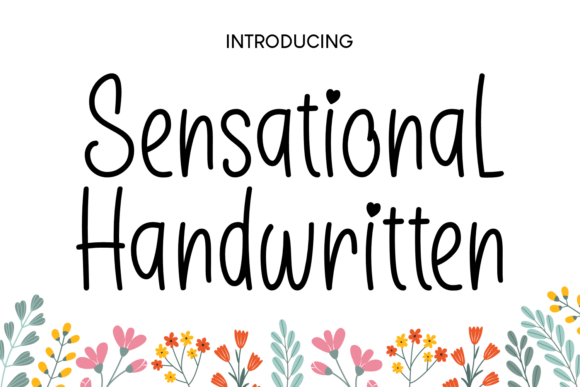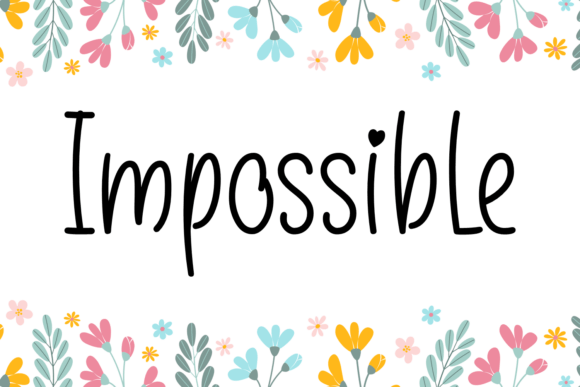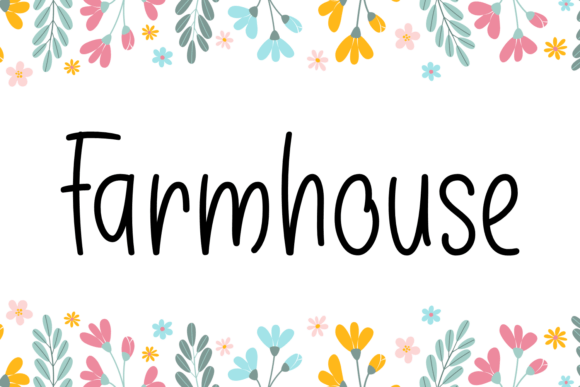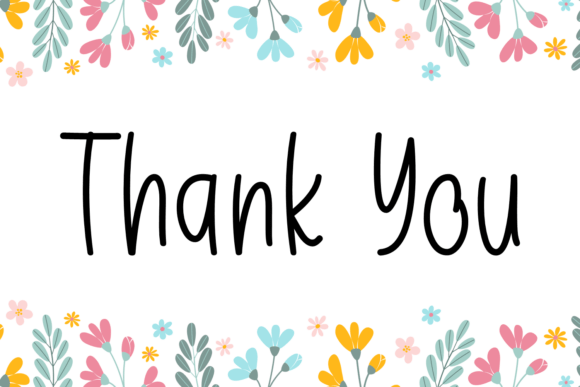
Sensational Handwritten Font
About the Sensational Handwritten Font
Make a bold statement with Sensational Handwritten Font, a powerful and memorable font. Sensational Handwritten is a charming and whimsical font with a casual, friendly feel. Featuring adorable heart details and smooth, rounded strokes, this font is perfect for greeting cards, kids’ projects, branding, social media, and DIY crafts. Its playful and cheerful vibe adds warmth and personality to any design!
Sensational Handwritten Font Example